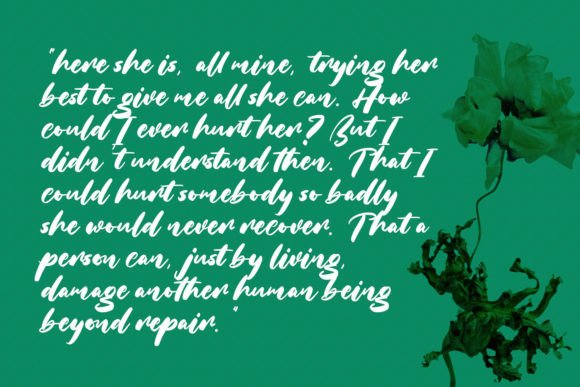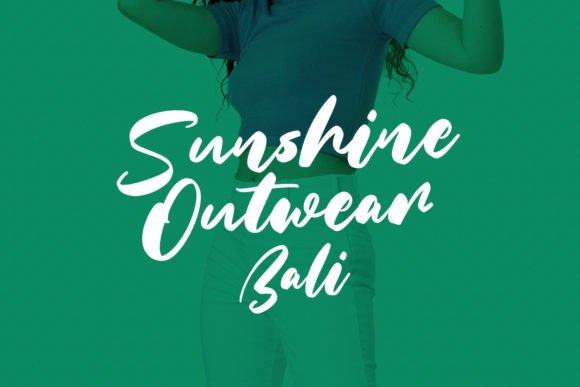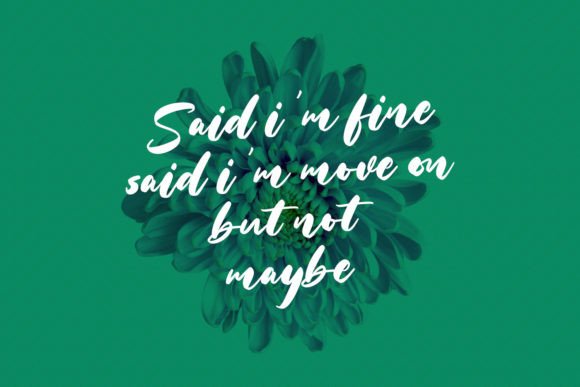
Introduction to Magic Airs Font
Magic Airs is a handwritten font with bold contrast strokes and a fun character with a bit of ligature t give you extra creative work.
Magic Air is good for logo design, social media, movie titles, book titles, short text, and long text, and good for your secondary text combined with a sans or serif Make stunning work with Magic Airs font.
Key Features of Magic Airs Font
Why Choose Magic Airs Font?
Magic Airs Font offers exceptional quality and versatility, making it a valuable addition to your design toolkit. Whether you’re creating for personal projects or commercial use, Magic Airs Font delivers professional results.